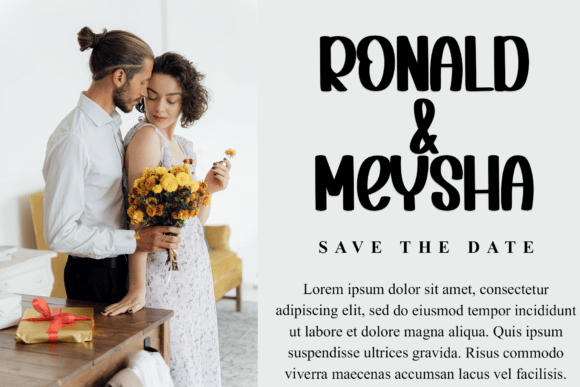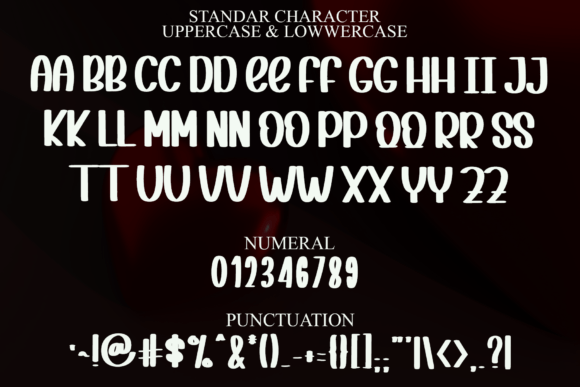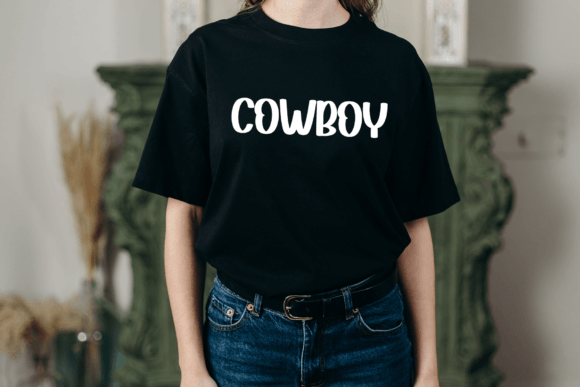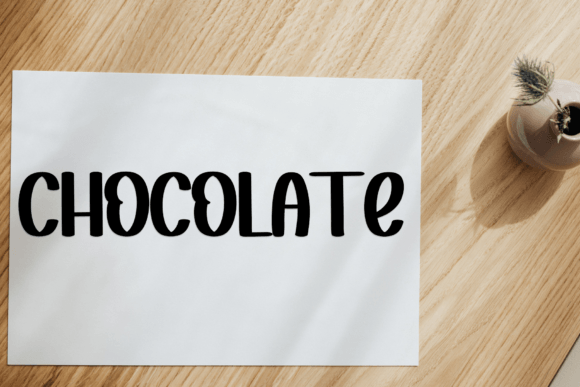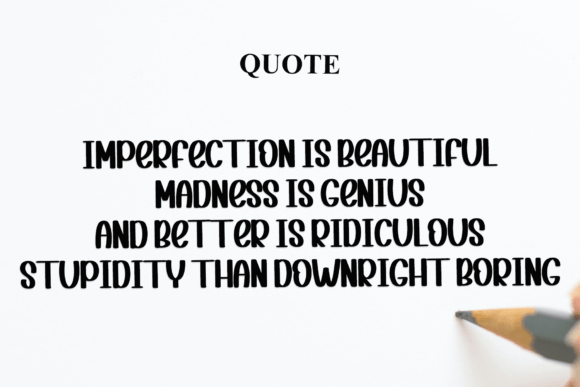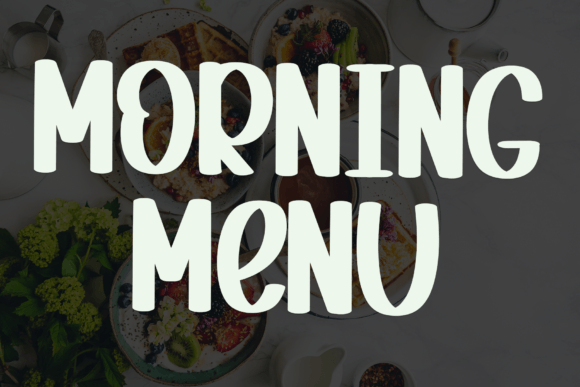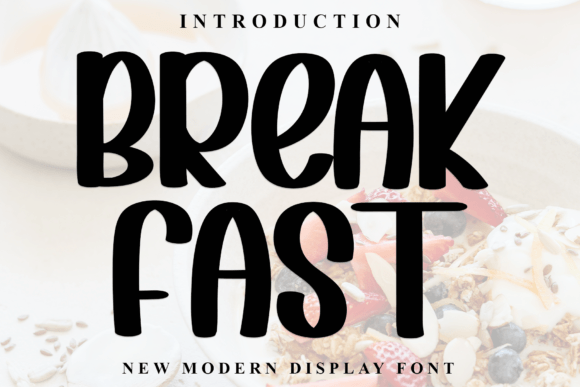
Start Your Day with a Delicious Design
There’s something special about sipping your morning coffee and browsing through design inspiration. The perfect cup, the perfect font – it’s a match made in heaven. And speaking of perfect fonts, have you discovered the Breakfast Font yet? This stylish display font is a timeless classic calligraphy reborn, with a contemporary atmosphere and impeccable form.
Designed to enhance the beauty of your projects, the Breakfast Font is a valuable addition to any designer’s toolkit. With its balanced and varied design, it’s perfect for adding a touch of elegance to your next design project. And with PUA encoding, accessing all the amazing glyphs and ligatures is a breeze. Whether you’re a seasoned pro or just starting out, the Breakfast Font is sure to become a staple in your design arsenal.
- Font Family: Breakfast Font is a sans-serif font family designed by Mike Abbink, with a wide range of styles and weights available.
- Character Set: Breakfast Font includes a comprehensive character set, including Latin, Greek, and Cyrillic scripts, as well as a range of punctuation and symbol glyphs.
- Unique Characteristics: Breakfast Font is known for its clean, modern design and its unique ’rounded’ feel, which gives it a friendly and approachable tone.
Breakfast Font Review
When I first stumbled upon the Breakfast Font, I was excited to see how it would fare in my design projects. ✨ The font has a fun, playful vibe that’s perfect for branding and marketing materials. The varied letterforms and rounded edges give it a friendly, approachable feel that’s sure to grab attention. ✨ I also appreciate the abundance of ligatures and swashes that add a touch of whimsy to the font. ✨ Overall, I think the Breakfast Font is a great choice for projects where you want to inject some personality and charm.
However, I do have a few reservations. ⚠️ Firstly, the font’s variability can sometimes be a bit too much – the inconsistent spacing and letter heights can make it difficult to read, especially in larger blocks of text. ⚠️ Additionally, I find the font’s x-height to be a bit too small, which can make it tricky to work with in smaller sizes. ⚠️ Finally, I wish the font had more language support – as it stands, it’s mostly limited to English and a few other European languages.
- Best used in branding, marketing materials, and other projects where a playful vibe is desired
- May not be suitable for large blocks of text or smaller font sizes
- Language support is limited
For optimal results, use Breakfast Font in headings and titles to create a clear visual hierarchy. Experiment with font sizes and styles to create visual interest. Common use cases include food blogs, restaurant menus, and advertising campaigns.